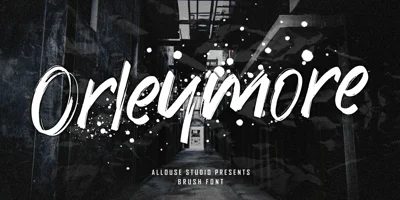
Orleymore Font
Orleymore Font is perfect for premium resort branding, upscale hospitality marketing, luxury travel magazines, sophisticated event planning, elegant venue signage, refined lifestyle publications, and distinguished cultural projects.
What makes Orleymore Font exciting is its gracious elegance and Southern sophistication, featuring refined letterforms that capture the essence of aristocratic charm while delivering distinguished visual appeal and hospitality authenticity.
The Orleymore Font family includes Light, Regular, Medium, Bold, and Black weights, plus elegant variants and hospitality-inspired alternates that enhance the font's gracious character and sophisticated possibilities.
Orleymore Font embodies the timeless grace of Southern hospitality and aristocratic elegance through masterful typography design. This distinguished typeface captures the refined spirit of genteel culture and gracious living, creating a sophisticated visual language that speaks to audiences who appreciate refined hospitality, cultural elegance, and the distinguished charm of gracious entertaining. The font's elegant character and hospitality appearance make it ideal for luxury resorts, upscale venues, and hospitality brands that want to communicate refinement, warmth, and the enduring appeal of gracious Southern sophistication.
Luxury hospitality companies and elegant venues consistently select Orleymore Font for projects that require authentic hospitality credibility and gracious visual appeal. The typeface's refined construction and elegant personality make it exceptionally effective for premium resorts, upscale restaurants, and luxury hospitality venues where gracious service and cultural sophistication are paramount. Each character has been crafted with gracious precision to ensure maximum elegance across all hospitality applications and refined environments.
The hospitality advantages of Orleymore Font extend beyond its elegant appeal to include practical functionality for diverse luxury applications. The font maintains excellent readability in upscale settings while delivering the distinctive character that creates memorable hospitality experiences and connects with guests seeking authentic gracious service. Its comprehensive character set includes hospitality symbols and elegant elements that make it particularly suitable for luxury documentation and refined communication.
Premium resorts, upscale venues, and luxury hospitality brands frequently choose Orleymore Font because of its ability to instantly convey hospitality excellence and gracious sophistication. The typeface's elegant aesthetic helps establish credibility in competitive luxury markets while appealing to guests who value refined service, cultural elegance, and the memorable experiences that come from authentic Southern hospitality and distinguished gracious entertaining.